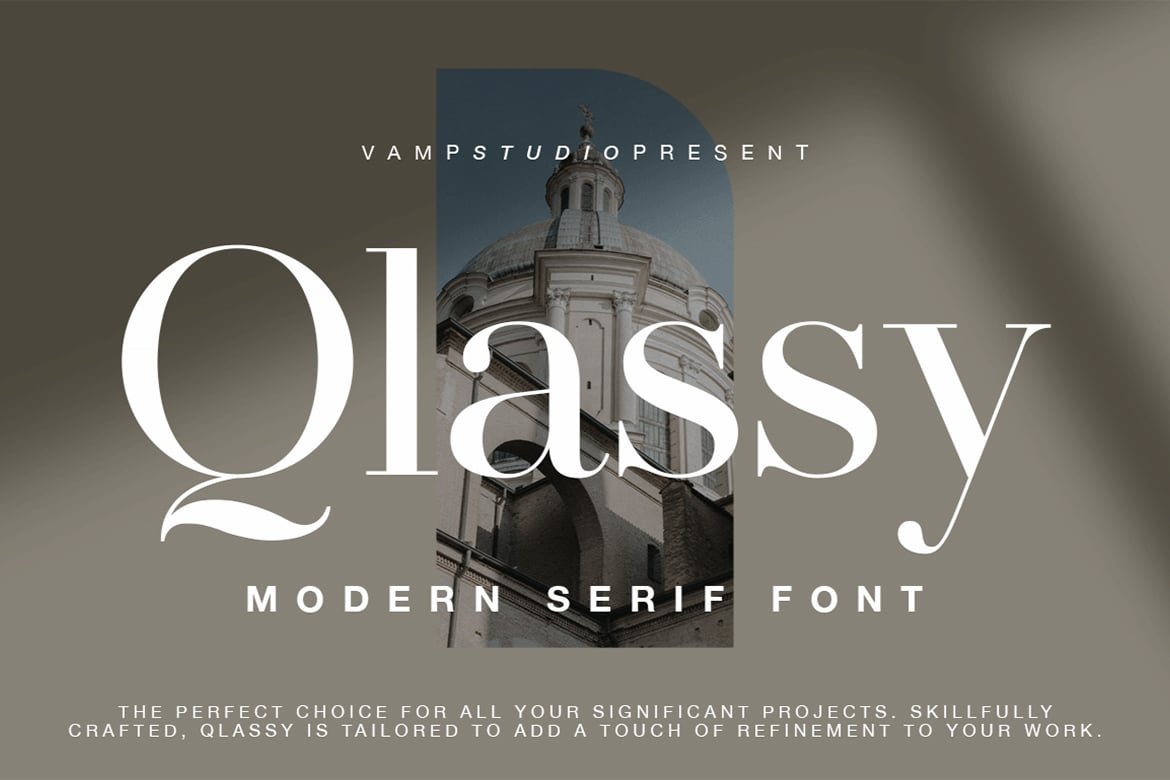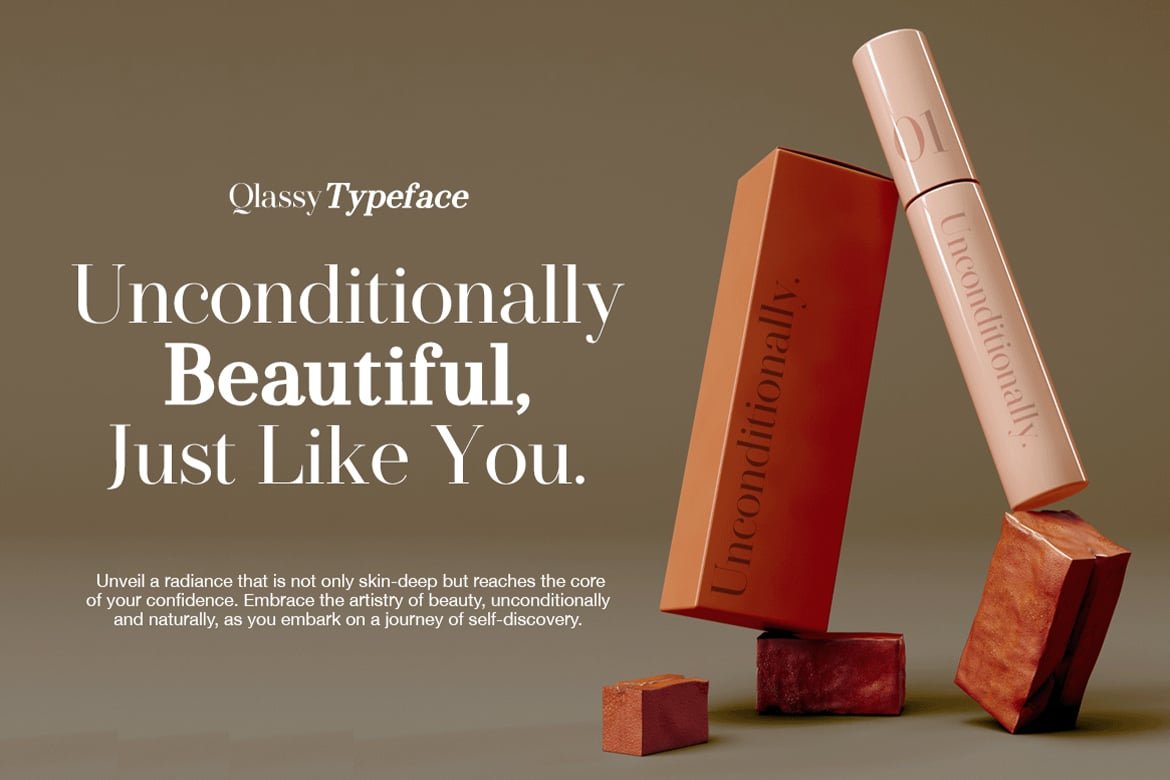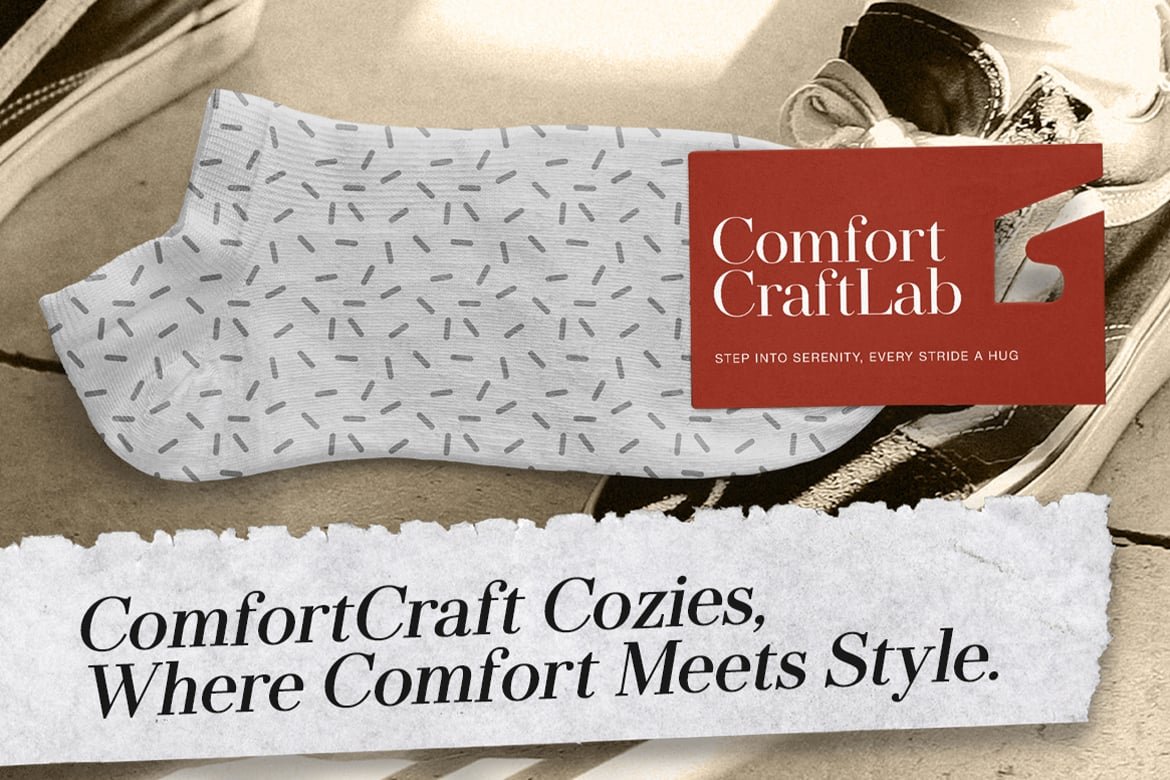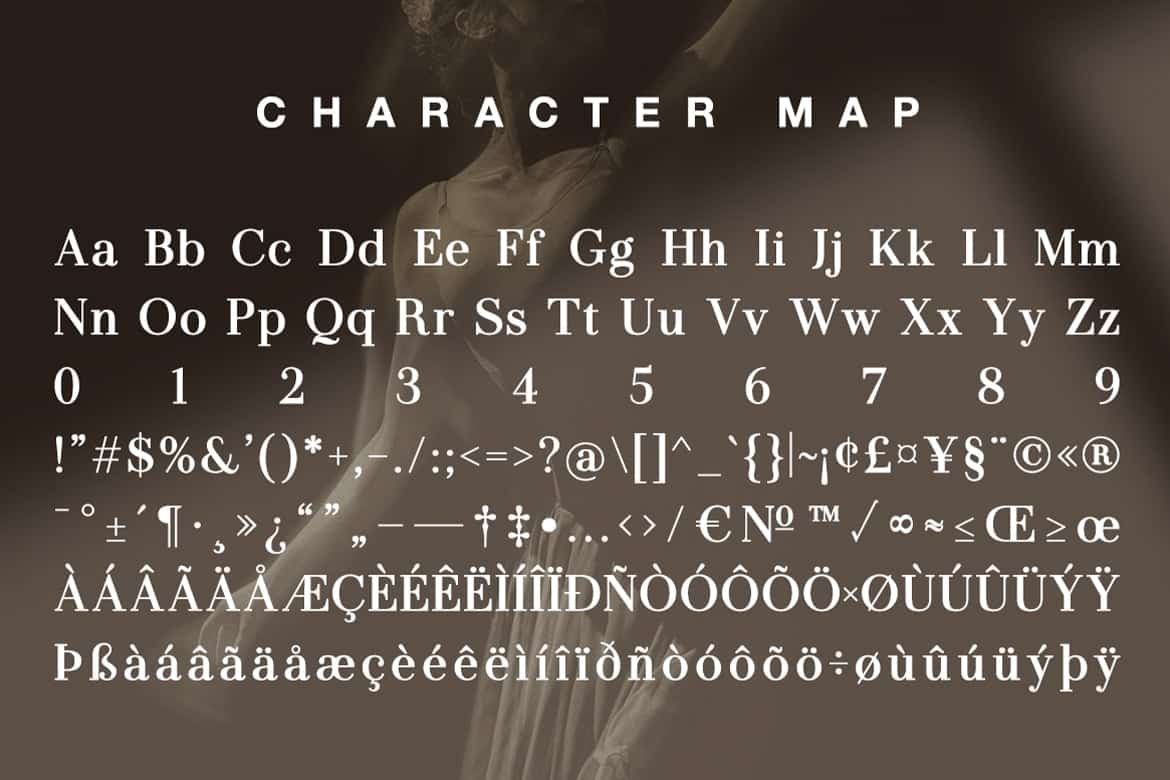
Qlassy – Elegant Modern Serif Font
Qlassy is a modern elegant serif typeface. This font looks very simple, clean, and elegant. Specially designed by skilled hands makes this font is the perfect fit for all your big projects.
Qlassy is perfect for branding projects, logo, wedding designs, social media posts, advertisements, product packaging, product designs, label, photography, watermark, invitation, stationery and any projects that need handwriting taste.
- Ton of glyphs
- Fonts include multilingual